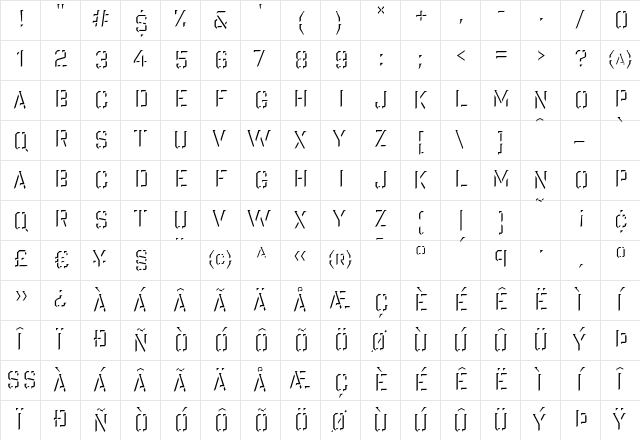
Giant Highlight
| Style | Highlight |
| Foundry | C) - Hoefler & Frere-Jones Typography, Inc |
Design Context for Giant Typeface
Giant is a composed and adaptable typeface that performs quietly and consistently across a wide range of design contexts. The delicate stroke weight brings airiness and refinement to layouts.